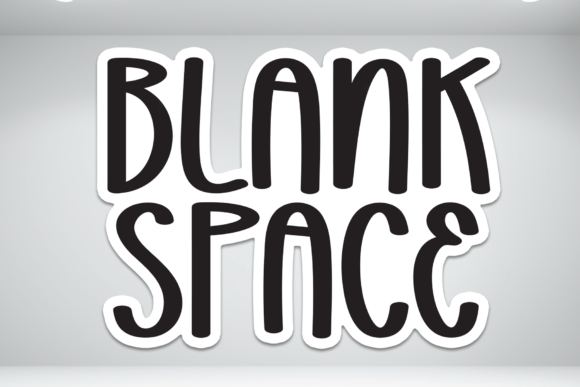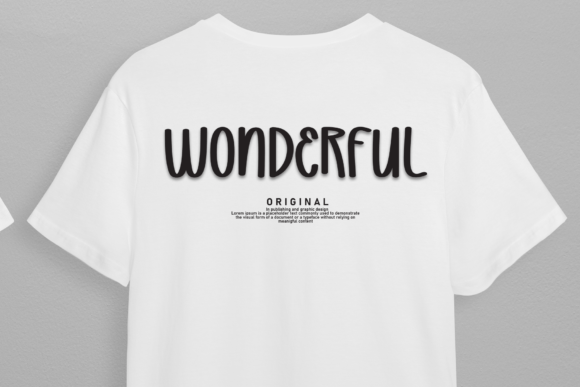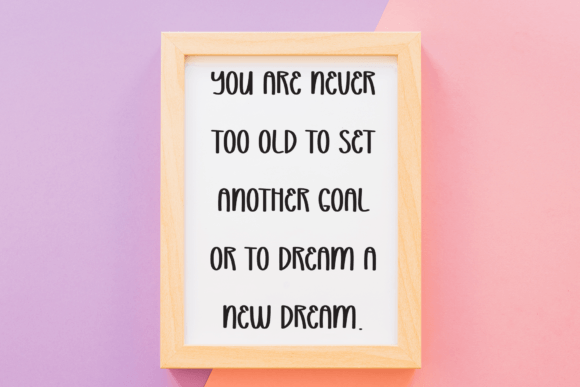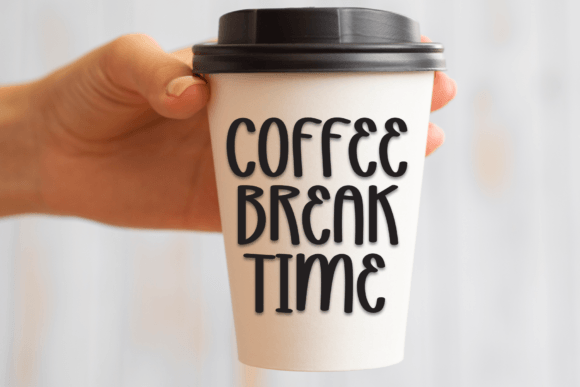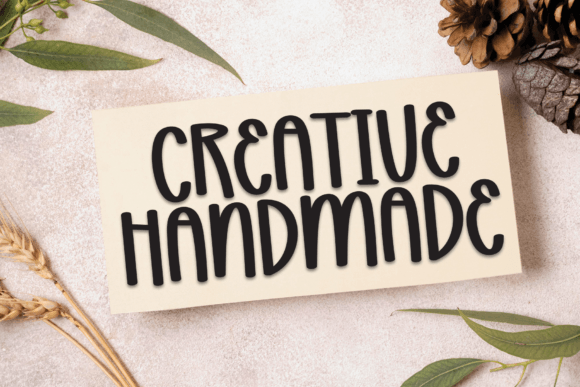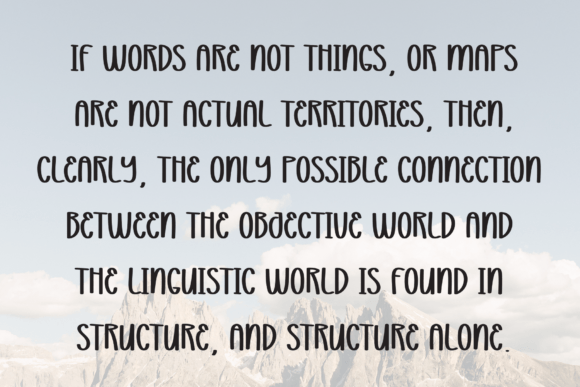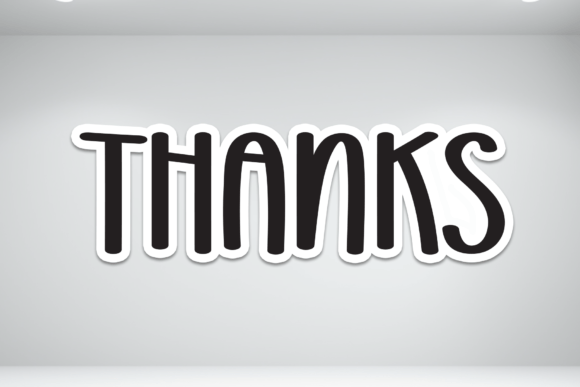
Love at First Sight: Introducing the Blank Space Font
Who hasn’t experienced that moment when you stumble upon a font that makes your heart skip a beat? For designers, it’s like finding a needle in a haystack – that one perfect font that elevates your design to the next level. And for me, that moment came when I discovered the Blank Space Font.
This sweet and friendly handwritten font is the perfect addition to any design project. Whether you’re writing wedding invitations, crafting birthday cards, or simply need a fun touch for your next design, Blank Space Font has got you covered. Its cute and playful vibe makes it an instant favorite among designers, and for good reason – it’s the perfect way to add a personal touch to your work.
Blank Space Font Key Features
- Font Family: Blank Space Font is a modern sans-serif font designed for digital use. It comes in multiple weights, from Thin to Extra Bold.
- Size: Blank Space Font supports a wide range of font sizes, from 8pt to 72pt, making it suitable for various design applications.
- Resolution: Optimized for high-resolution displays, Blank Space Font is ideal for use in digital media, including websites, mobile apps, and social media platforms.
- Unique Characteristics: Blank Space Font features a unique blend of geometric and organic shapes, giving it a distinctive and modern feel.
- Character Count: Blank Space Font includes a comprehensive set of characters, including uppercase and lowercase letters, numbers, punctuation marks, and special characters.
Blank Space Font Review
Overall, I think Blank Space Font is a solid choice for designers looking for a clean and elegant display font. ✨ The font’s modern aesthetic and wide range of weights make it a great option for headings and titles.
- ✨ Clean and elegant design
- ✨ Wide range of weights (light, regular, bold, etc.)
- ✨ Modern aesthetic
- ✨ Great for headings and titles
- ⚠️ Limited support for languages with complex scripts (e.g. Arabic, Chinese, etc.)
- ⚠️ May not be suitable for body text due to its display font nature
- ⚠️ Some users may find the font too simplistic or generic
While Blank Space Font has its limitations, I think it’s a great choice for designers who need a clean and elegant display font. With its modern aesthetic and wide range of weights, it’s a versatile option that can be used in a variety of design contexts. Just be aware of its limitations, particularly with language support and suitability for body text.
Tips for Getting the Most Out of Blank Space Font
Use Blank Space Font to create a unique and eye-catching design. Experiment with different font sizes, colors, and styles to make the most of this distinctive font. Pair it with bold or italic fonts to create a visually appealing contrast.
Blank Space Font is perfect for creating titles, headings, and quotes in designs, presentations, and documents. Its spaced-out letters make it ideal for use in social media graphics, posters, and flyers.